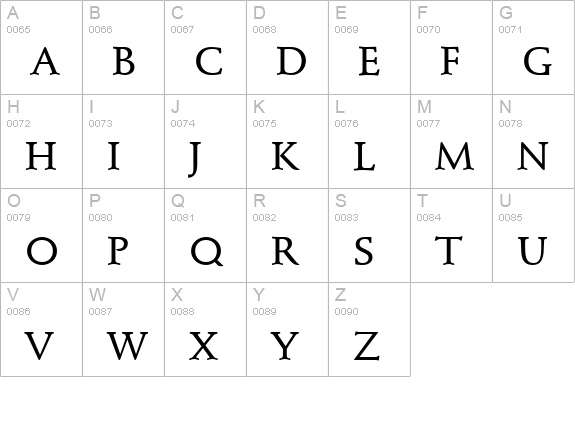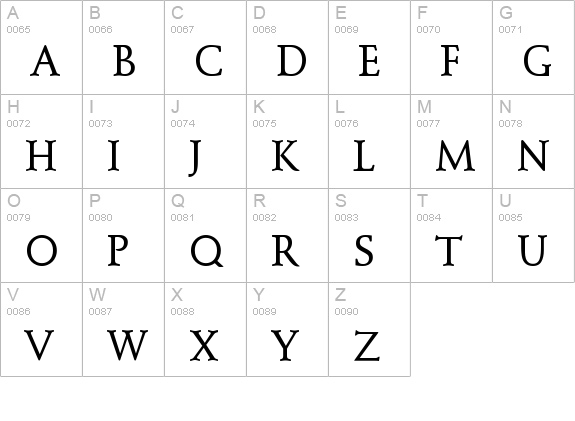
Deutch Medium SSi Medium is a balanced, medium-weight variant in the Deutch typeface family \xE2\x80\x94 well suited to sub-headlines, navigation, and balanced editorial work.
Deutch Medium SSi Medium font is a versatile typeface that strikes the perfect balance between modernity and classic elegance. With its medium weight and clean lines, this font is ideal for a wide range of design projects, from branding to editorial layouts. The Deutch Medium SSi Medium font exudes a sense of sophistication and professionalism, making it a go-to choice for designers looking to make a statement. What's even better is that the Deutch Medium SSi Medium font is available for free download at FontsMarket.com. This means you can easily access this high-quality font without any cost, making it a valuable addition to your design toolkit. Whether you're working on a personal project or a client's campaign, the Deutch Medium SSi Medium font is sure to elevate your designs and help you stand out from the crowd.